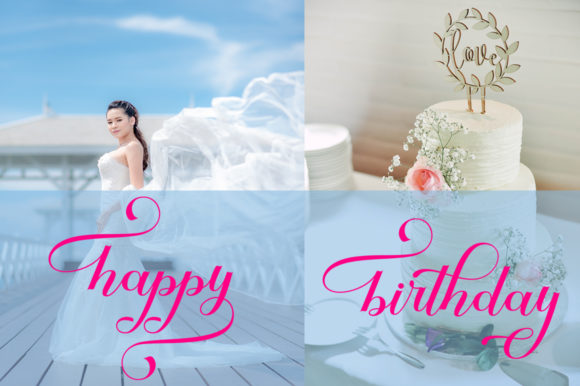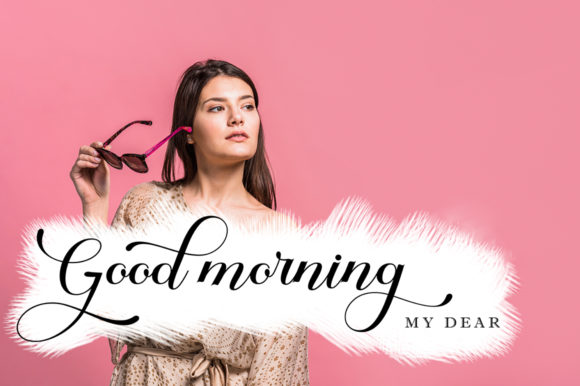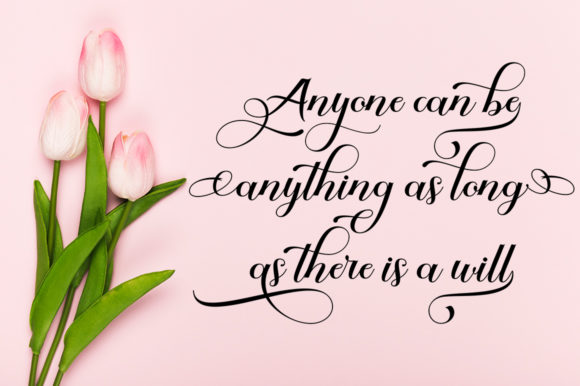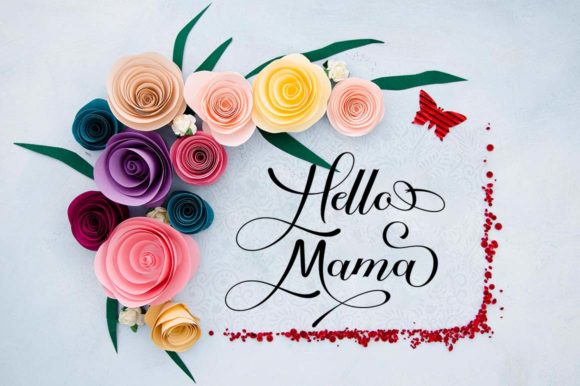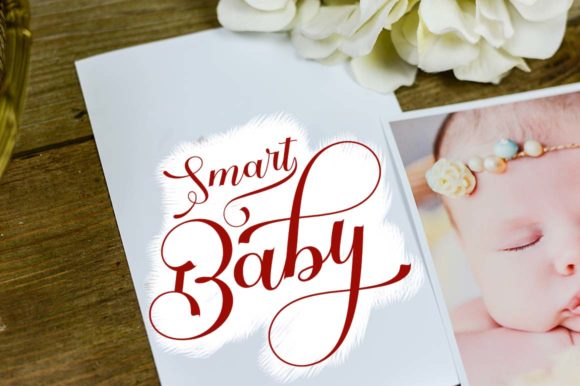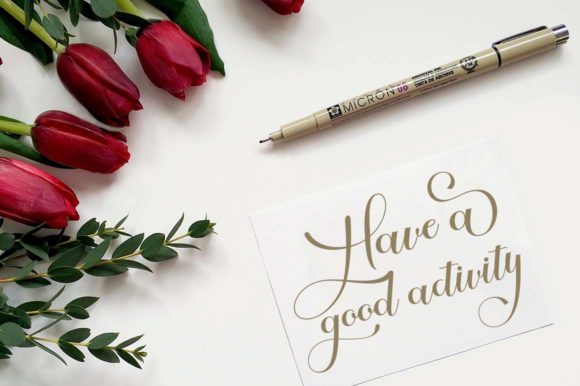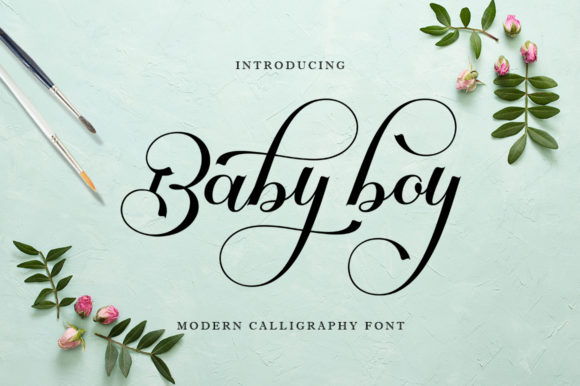
Baby Boy Font: The Perfect Addition to Your Design Arsenal
Are you a designer or crafter looking for a font that exudes romance and elegance? Look no further than the Baby Boy font. This beautiful, handwritten font is perfect for adding a touch of whimsy and sophistication to your designs. In this article, we’ll take a closer look at the Baby Boy font, its features, and how you can use it to elevate your designs.
What is Baby Boy Font?
Baby Boy font is a romantic and elegant handwritten font that is perfect for a variety of design projects. Its beautiful, flowing script is reminiscent of traditional calligraphy, but with a modern twist. The font is highly legible and versatile, making it suitable for use on a wide range of materials, from baby shower invitations and thank you cards to quotes, greeting cards, logos, and business cards.
Key Features of Baby Boy Font
So, what makes Baby Boy font so special? Here are just a few of its key features:
- Romantic and elegant: Baby Boy font has a beautiful, flowing script that is perfect for adding a touch of romance and elegance to your designs.
- Handwritten: The font has a handmade feel that gives it a personal and unique touch.
- Highly legible: Despite its elegant appearance, Baby Boy font is highly legible, even at small sizes.
- Versatile: The font is suitable for use on a wide range of materials, from digital designs to print materials.
Uses for Baby Boy Font
So, how can you use Baby Boy font in your designs? Here are just a few ideas:
- Baby shower invitations: The font’s romantic and elegant appearance makes it perfect for baby shower invitations.
- Thank you cards: Add a touch of whimsy and sophistication to your thank you cards with Baby Boy font.
- Quotes and posters: The font’s beautiful script is perfect for creating eye-catching quotes and posters.
- Greeting cards: Use Baby Boy font to create beautiful and elegant greeting cards for special occasions.
- Logos and branding: The font’s unique and elegant appearance makes it perfect for use in logos and branding materials.
- Business cards: Add a touch of sophistication to your business cards with Baby Boy font.
Tips for Using Baby Boy Font
Here are a few tips for getting the most out of Baby Boy font:
- Use it sparingly: While Baby Boy font is beautiful, it can be overwhelming if used too much. Use it sparingly to add a touch of elegance to your designs.
- Pair it with other fonts: Baby Boy font pairs well with a variety of other fonts, including sans-serif fonts and script fonts.
- Experiment with colors: The font’s elegant appearance looks great in a variety of colors, from pastels to bold and bright colors.
In conclusion, Baby Boy font is a beautiful and elegant handwritten font that is perfect for adding a touch of romance and sophistication to your designs. Its highly legible and versatile appearance makes it suitable for use on a wide range of materials, from baby shower invitations and thank you cards to quotes, greeting cards, logos, and business cards. With its unique and elegant appearance, Baby Boy font is sure to become a staple in your design arsenal.
Overall, Baby Boy font is a beautiful and elegant addition to any design project. Its romantic and elegant appearance makes it perfect for a variety of uses, from baby shower invitations to logos and branding materials. With its highly legible and versatile appearance, Baby Boy font is sure to become a favorite among designers and crafters.